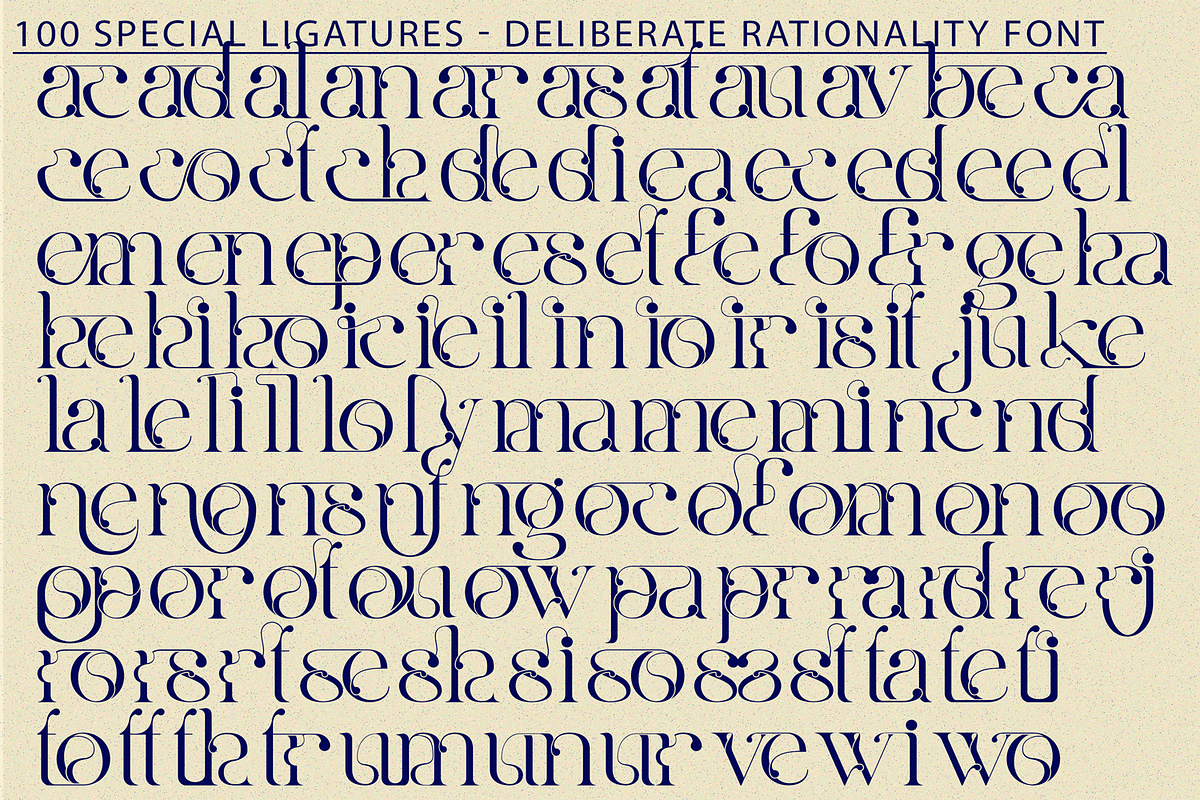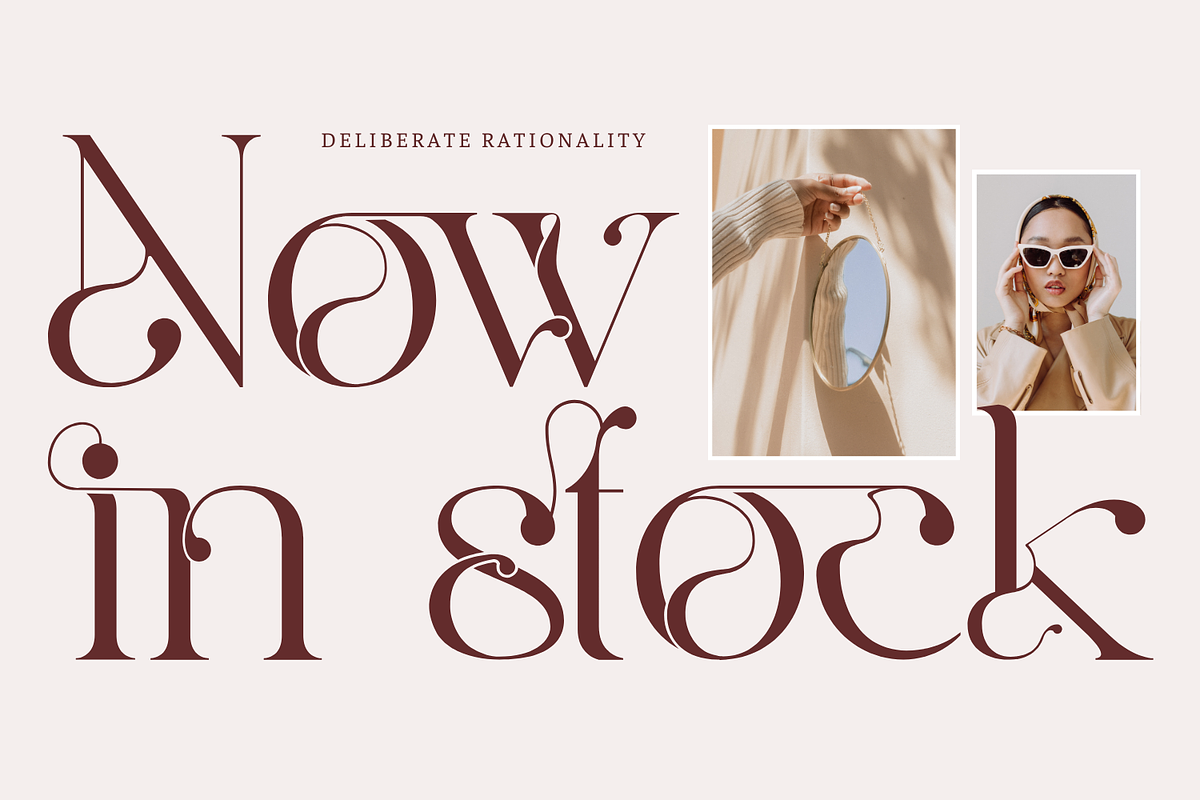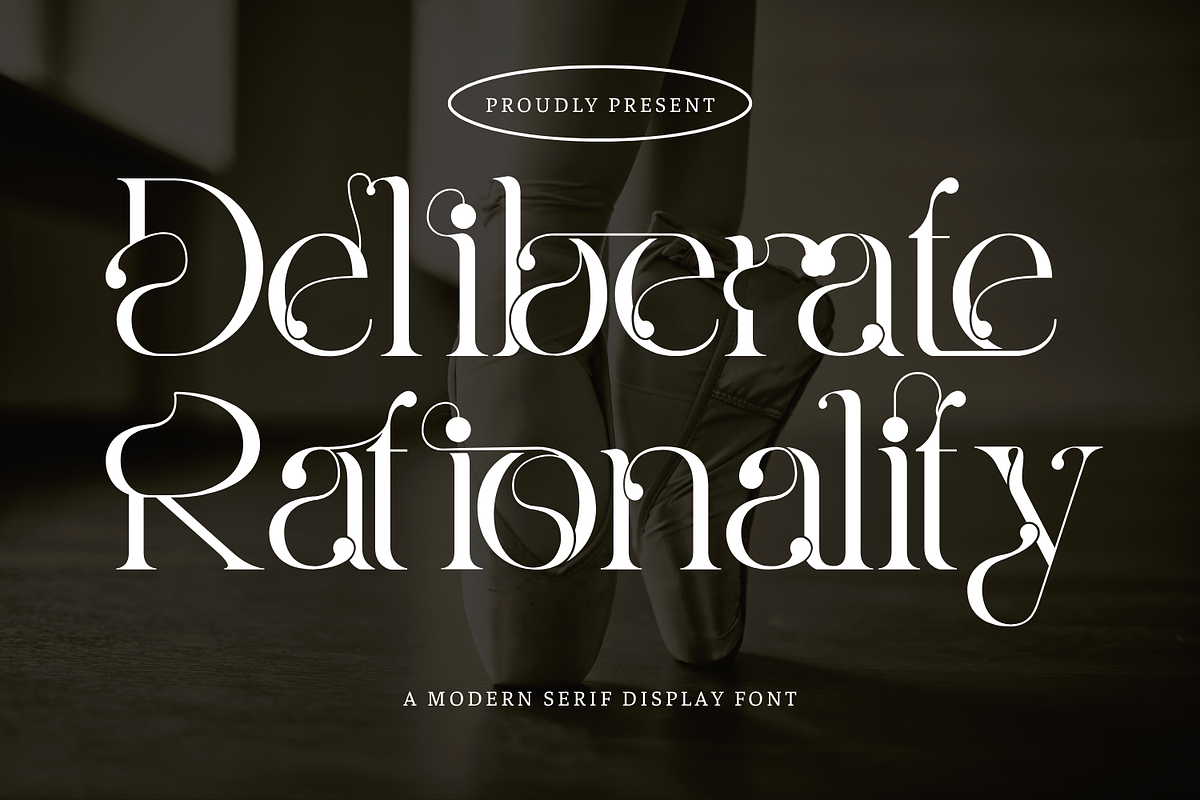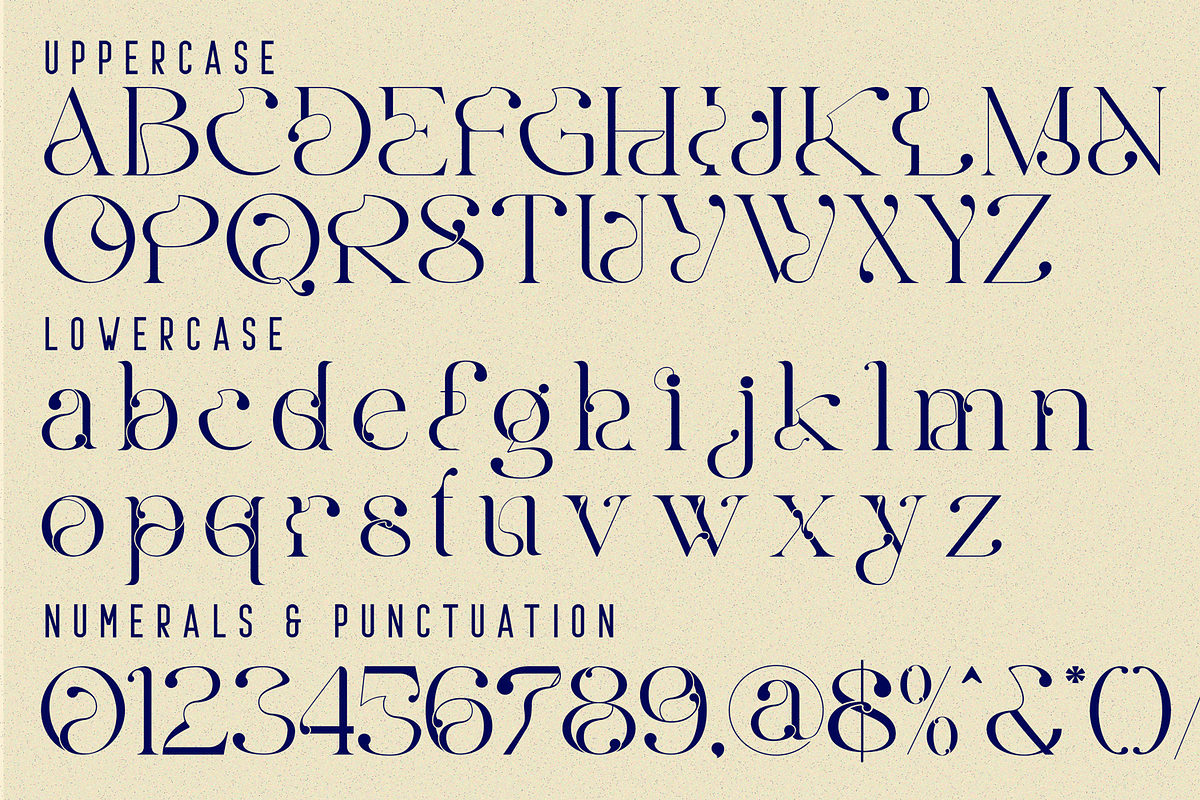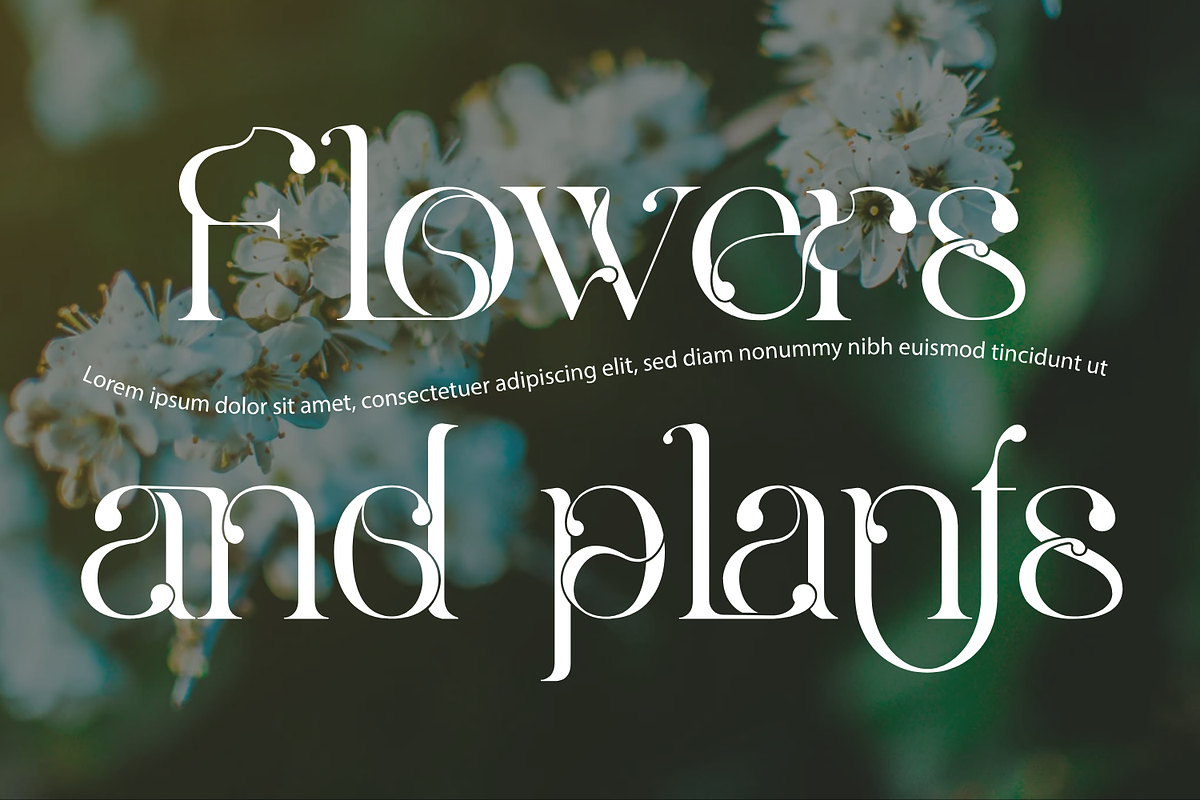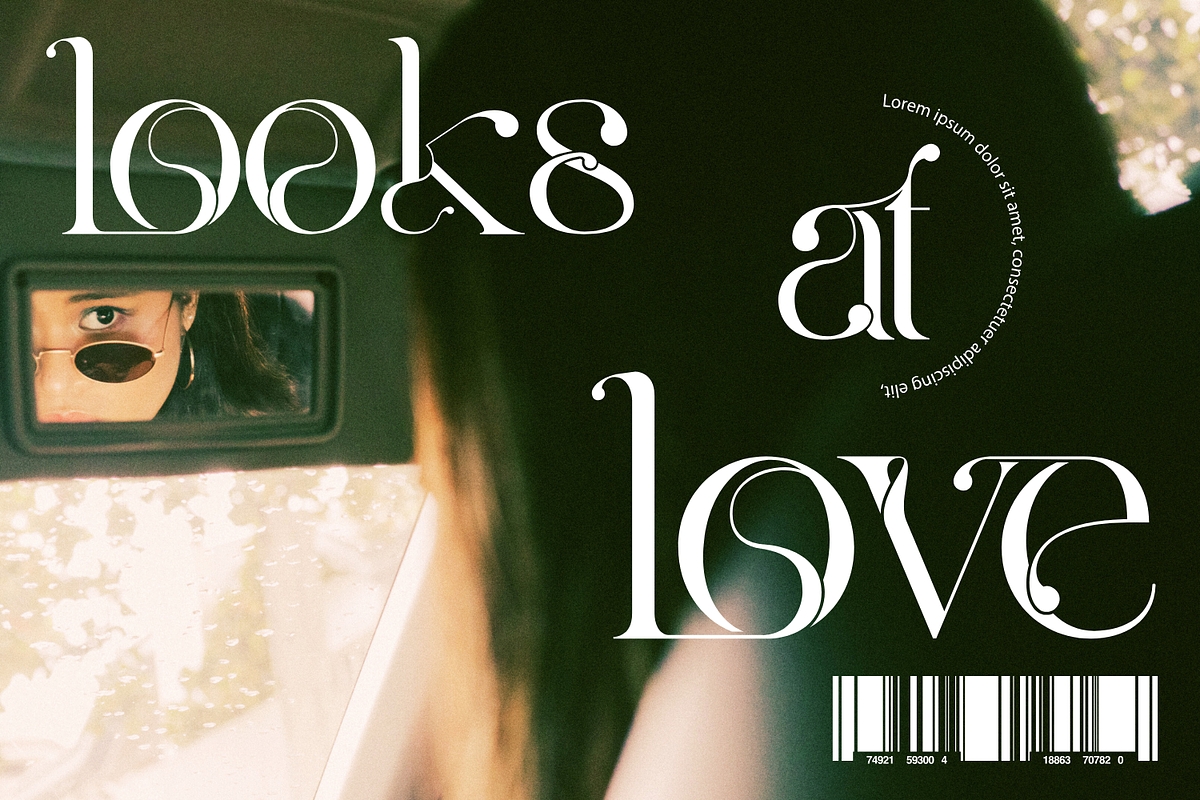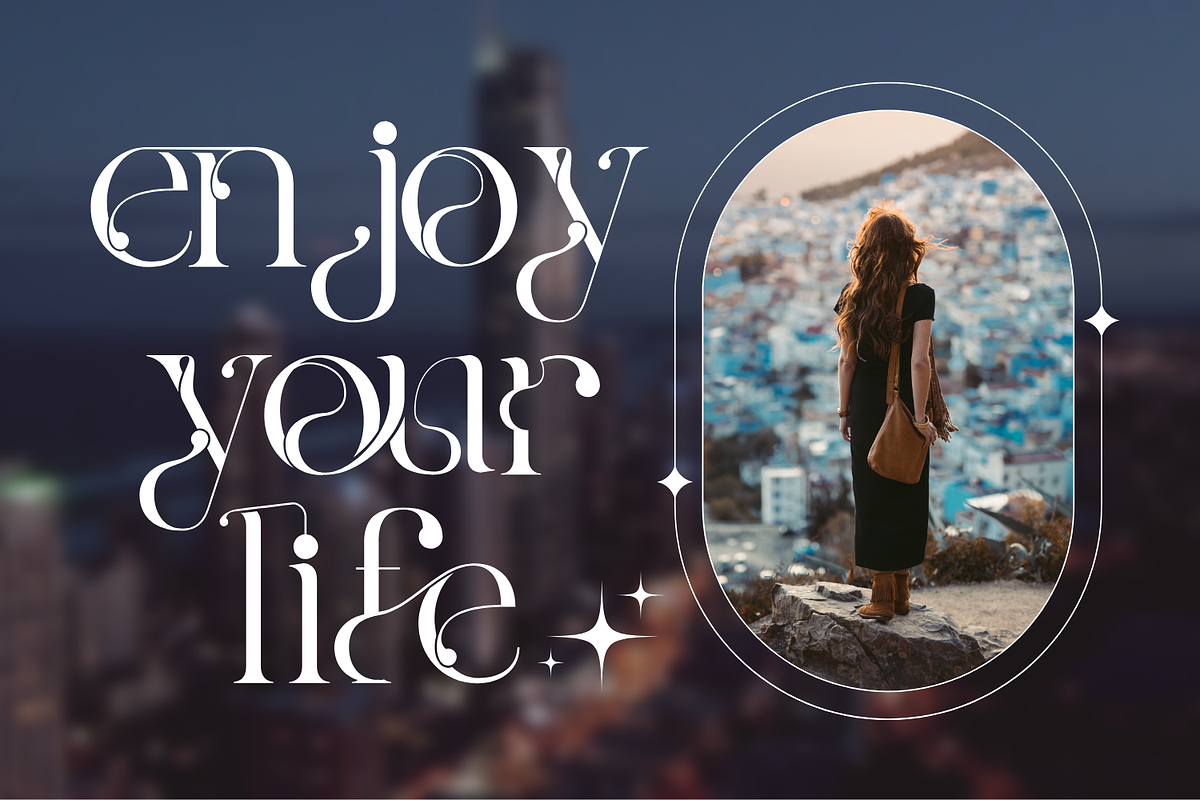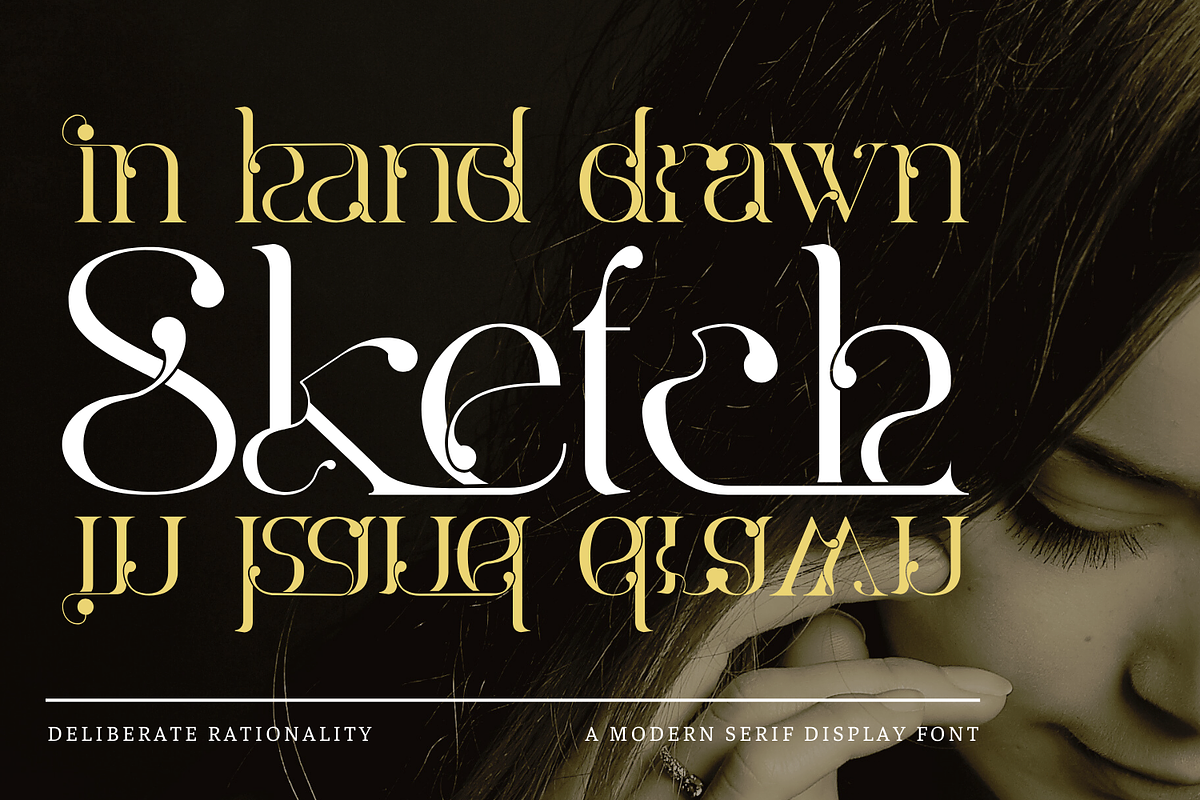
Deliberate Rationality - Modern Font
Introducing Deliberate Rationality - Modern Serif Font: A Unique & Artistic Modern Serif Display Font, a stunning Modern Serif Display font designed for those who dare to be different. This font masterfully combines the timeless elegance of serif typefaces with bold, contemporary artistry. Featuring high-contrast strokes and intricately decorated letterforms with unique flourishes and terminals, Deliberate Rationality is crafted to make a statement. Ideal for high-impact headlines, sophisticated logos, fashion branding, editorial design, artistic posters, and any project demanding a touch of unique elegance and creative flair.
- Uppercase & Lowercase Letters: A full set of distinctively styled characters. ~100 Special Ligatures: Add an extra layer of customization and artistic flow with beautifully crafted letter combinations.
- Numerals & Punctuation: Complete set of numbers and punctuation, designed cohesively with the font's artistic style.
- Accented Characters: Broad multilingual support with a comprehensive range of accented characters.
About 100 ligatures combined with Stylistic Alternates Font:
ac ad al an ar as at au av be ca ce ch co ct de di ea ec ed ee el em en ep er es et fe fo fr ge ha he hi ho ie ic il in io ir is it ju ke la le li ll lo ly ma me mi nc nd ne ng no nt ns oc of om on oo op or ot ou ow pa pr ra rd re ri ro rs rt se sh si so ss st ta te th ti to tr tt um un ur ve wi wo